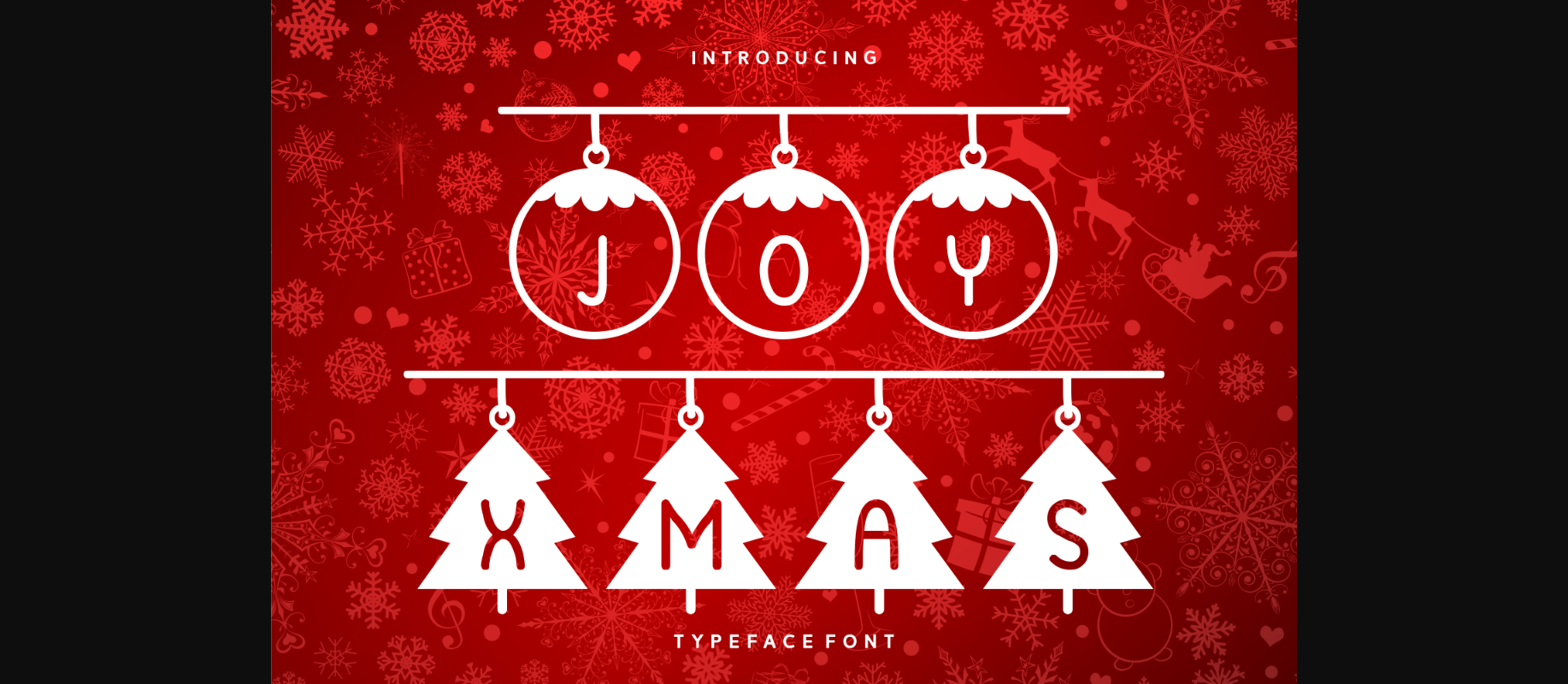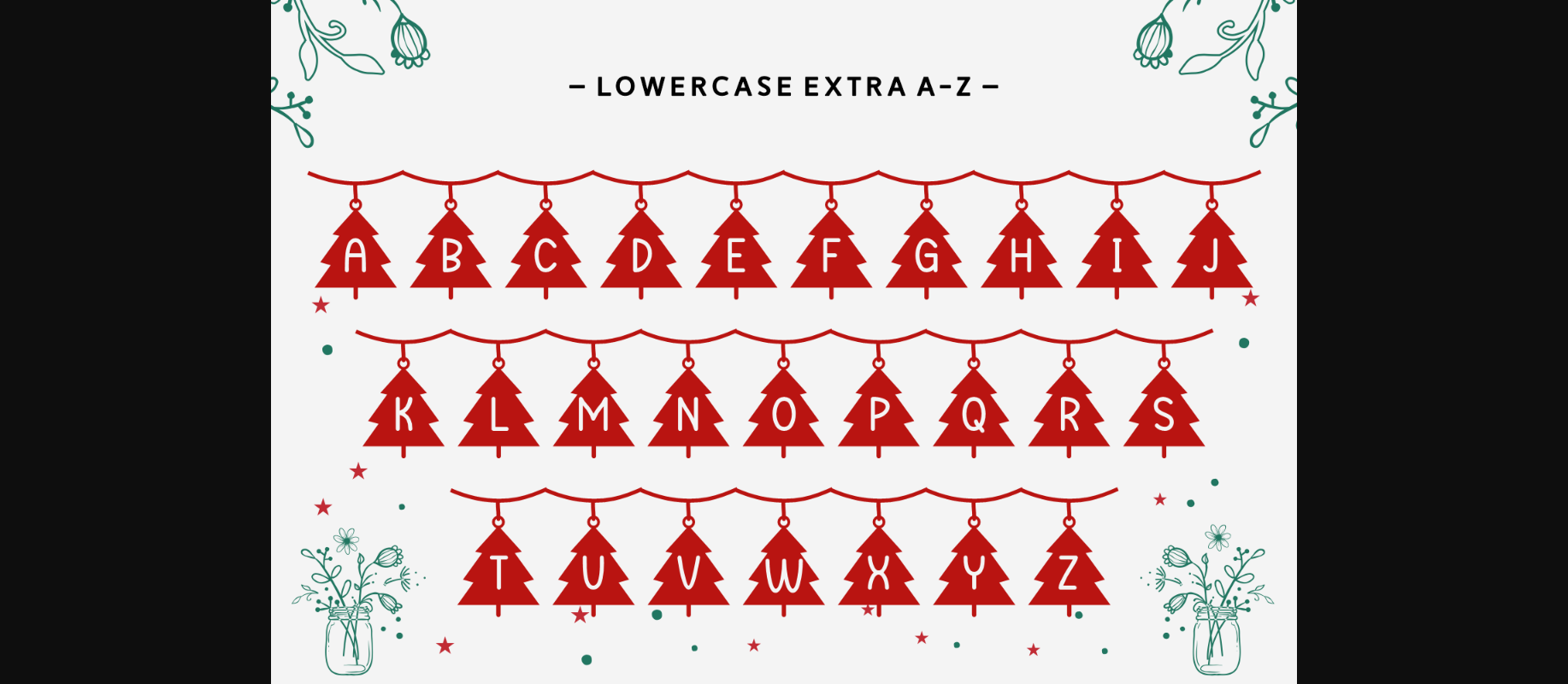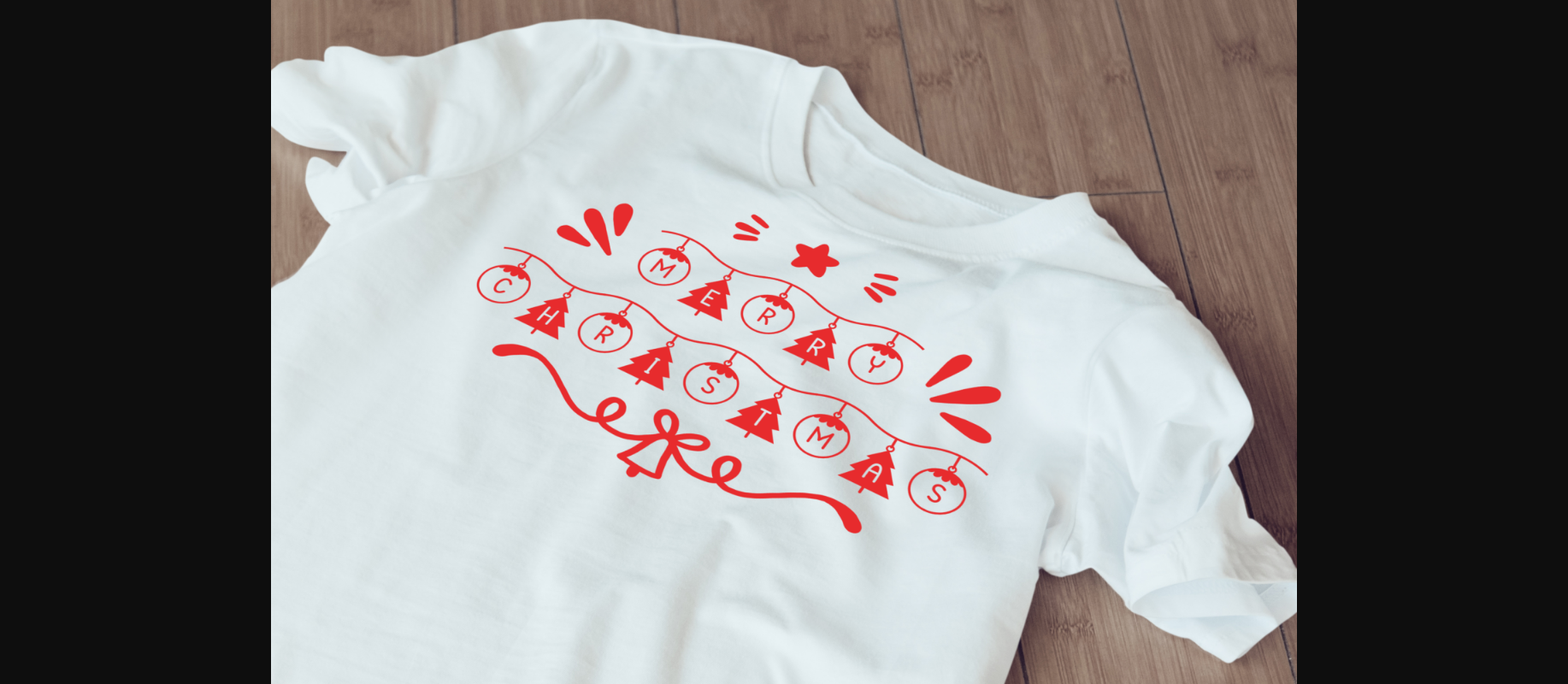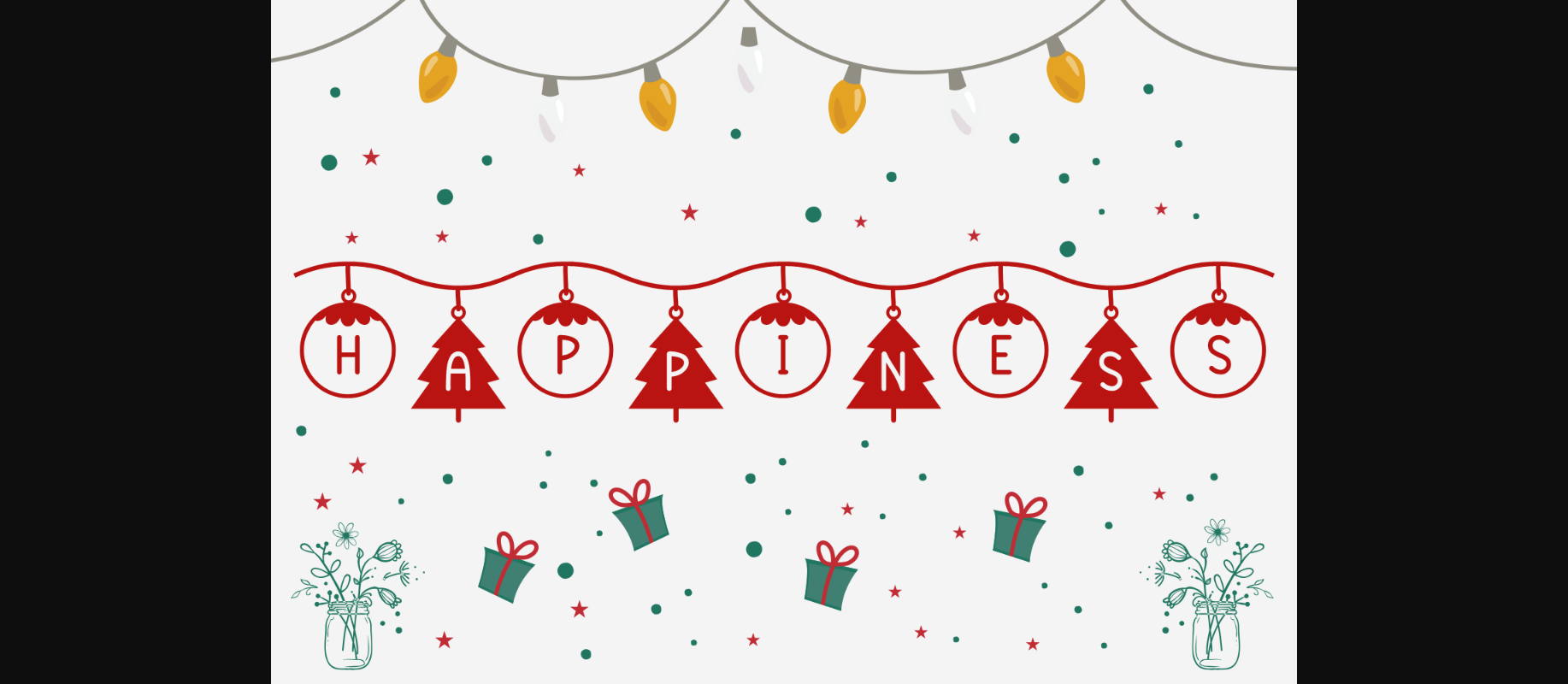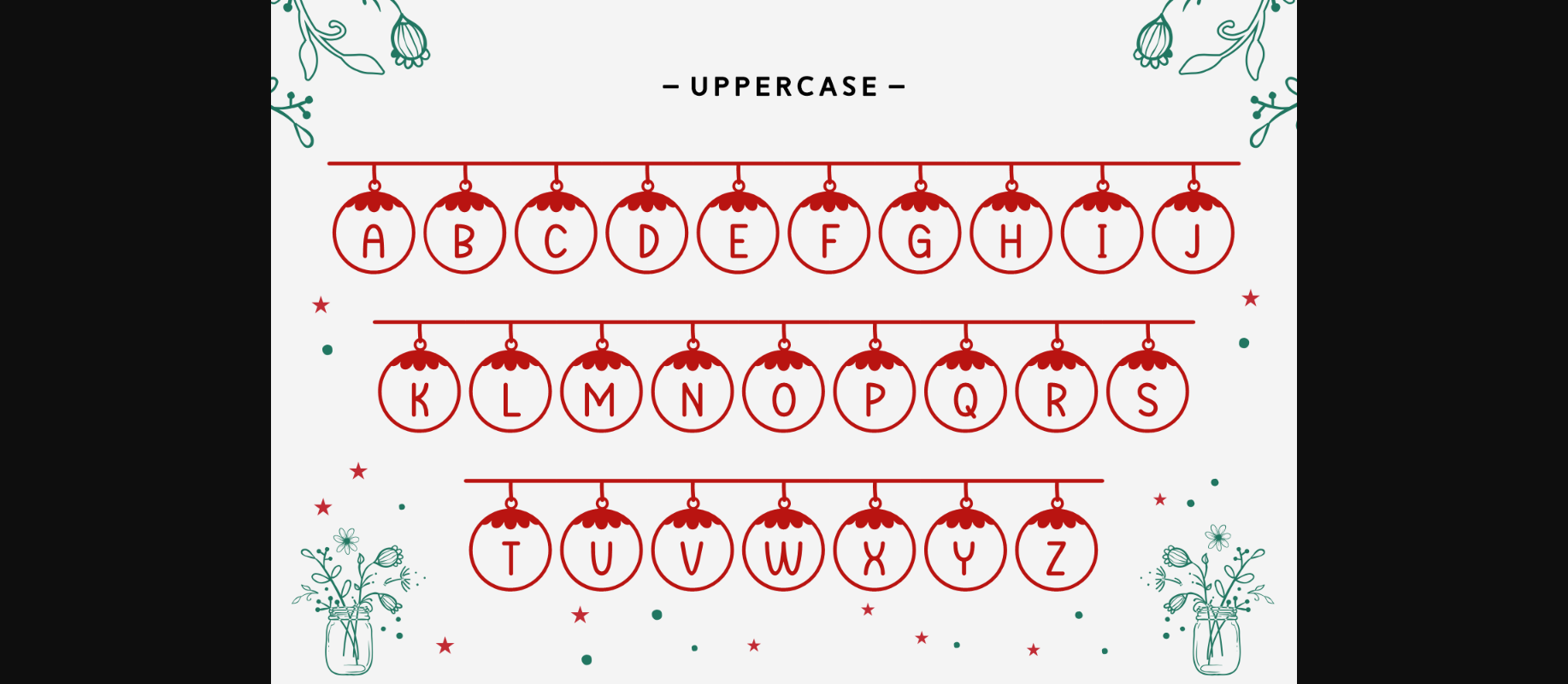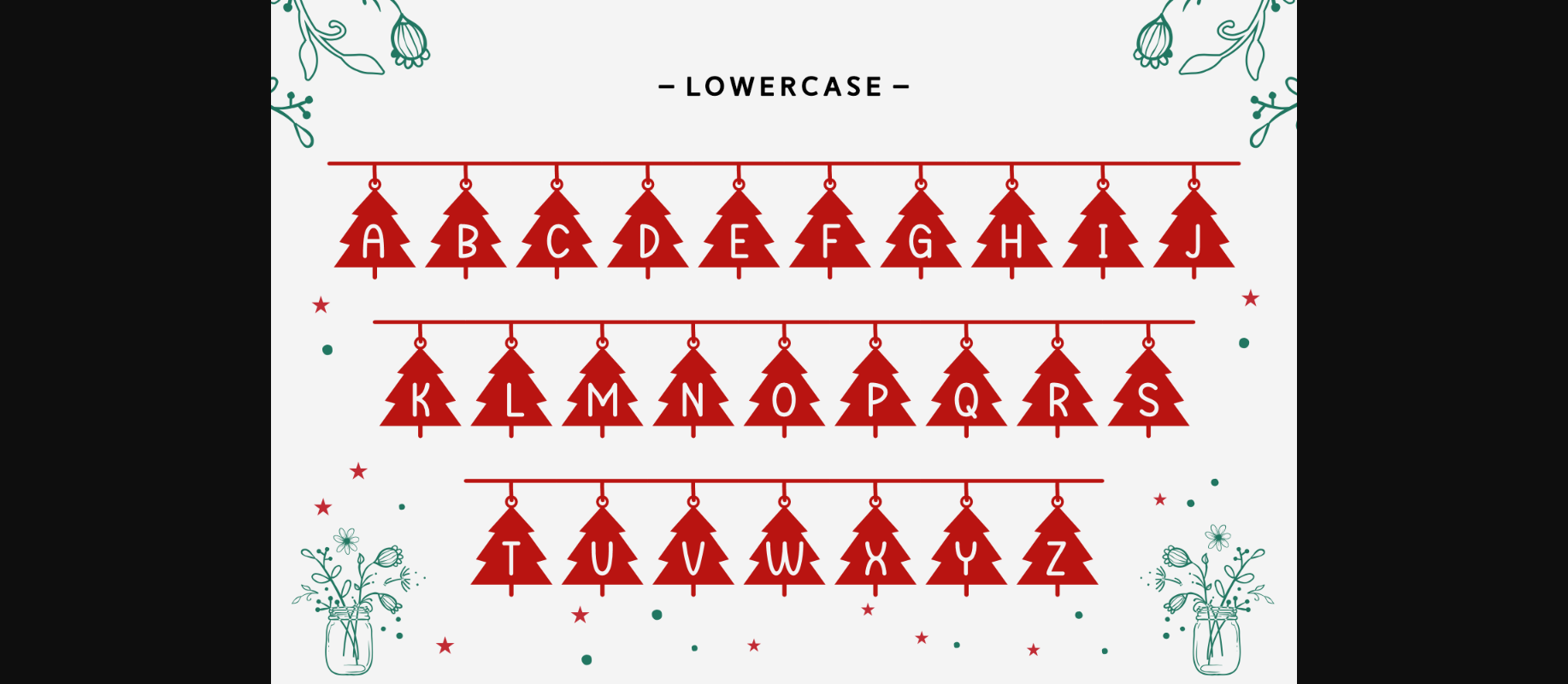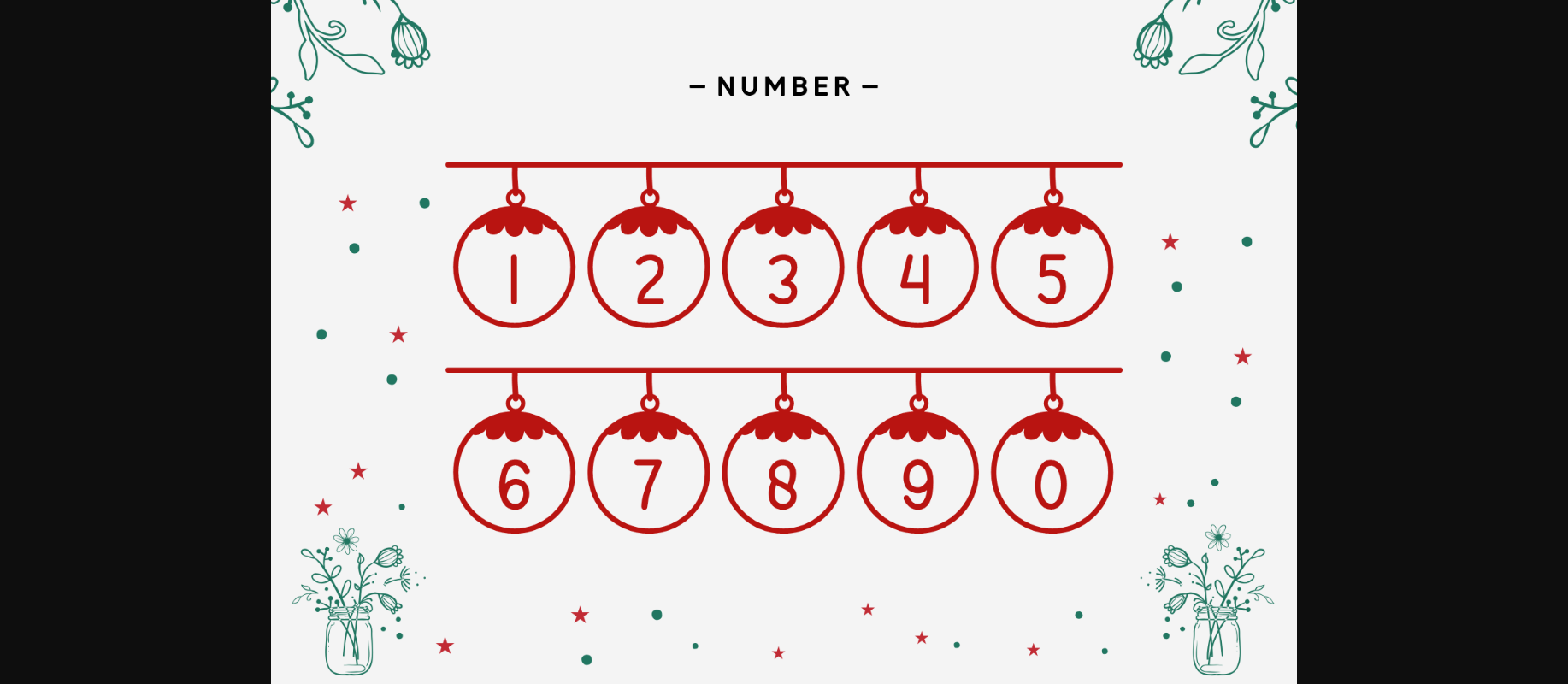
Joy Xmas Font
About Joy Xmas Font
Joy Xmas is a sweet, festive decorative font. Add some cheer to your Christmas project with this adorable font and impress any audience!